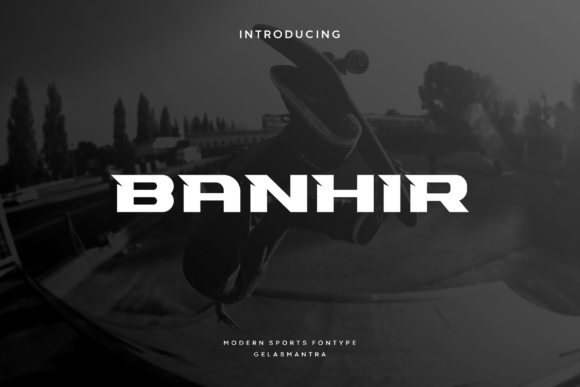
Step into the arena of bold and captivating sports typography with Banhir Font, the ultimate display font crafted for the dynamic world of sports. Unleash your creativity and let your designs shine with the power of Banhir, a font that embodies the essence of athleticism, energy, and unwavering spirit.
With its thick, bold letters, Banhir commands attention like a star athlete on the field. Each character exudes strength and determination, propelling your designs to new heights of visual impact. Whether you're creating sports posters, team logos, or dynamic headlines, Banhir is your trusted companion, ensuring your message hits the mark with precision and flair.
As a font created with sports designers in mind, Banhir understands the unique demands of sports-related design. Its carefully crafted letterforms dance effortlessly across the page, capturing the essence of movement, competition, and the thrill of victory. Whether you're designing for a local sports team, a major league franchise, or a global sporting event, Banhir delivers the perfect balance of readability and visual appeal.
But Banhir's talents extend far beyond the sports arena. Its versatility shines in a wide range of design projects, from movie posters and video game titles to fashion magazines and product packaging. With its ability to convey a sense of power, energy, and excitement, Banhir breathes life into any design, transforming ordinary words into unforgettable statements.
So, take your designs to the next level with Banhir Font, the ultimate display font for sports and beyond. Experience the thrill of creating designs that resonate with passion, power, and unwavering determination. With Banhir as your font of choice, every project becomes a winning performance. Unleash your creativity and make a bold statement with Banhir today!